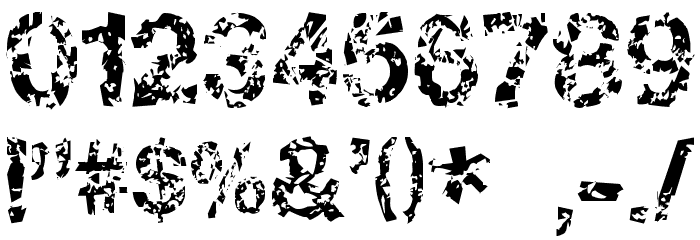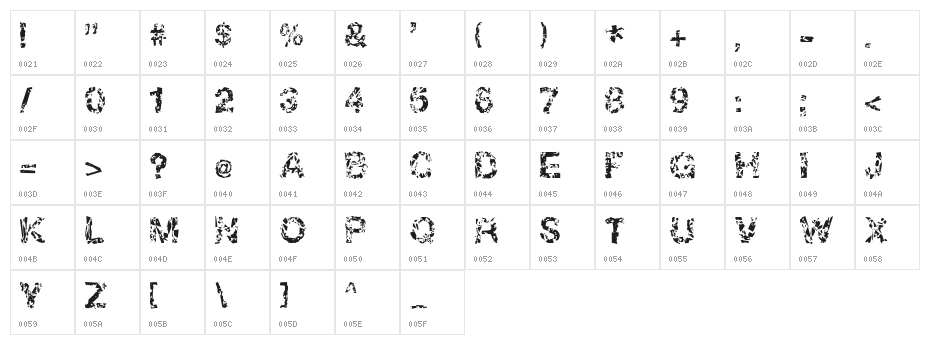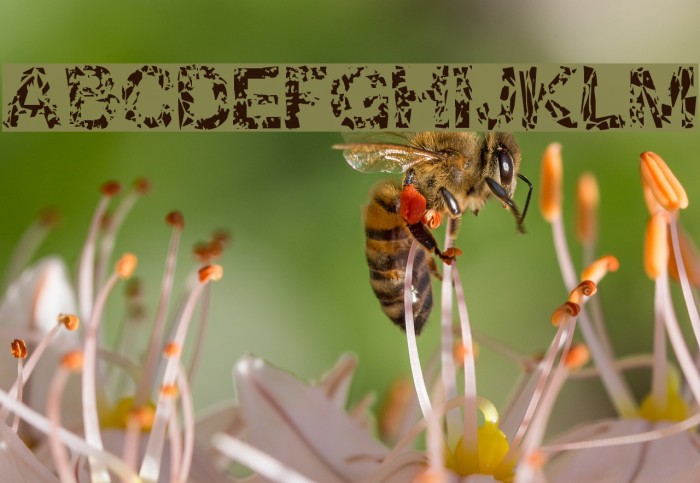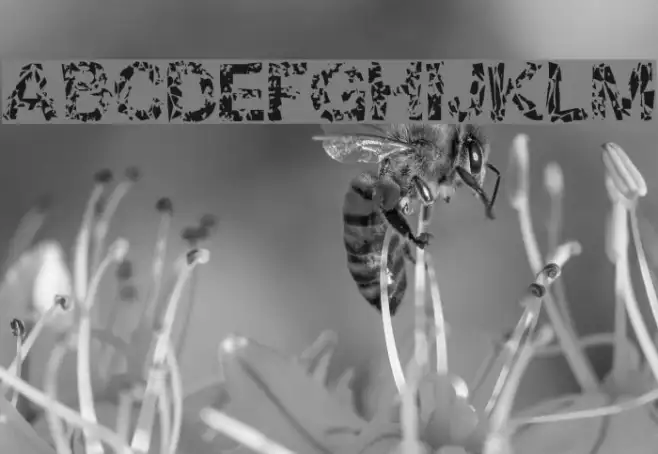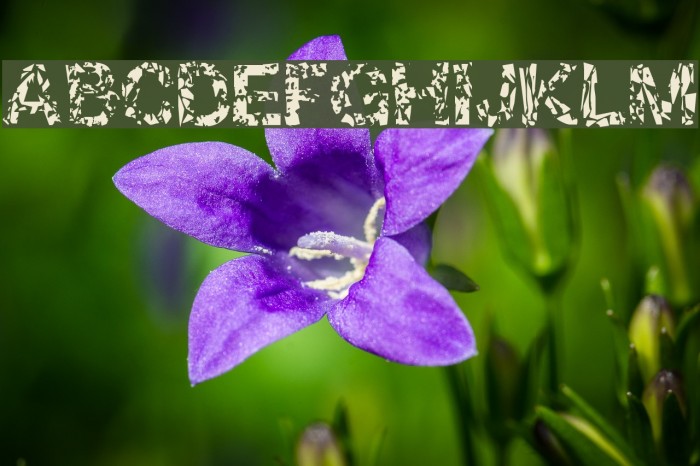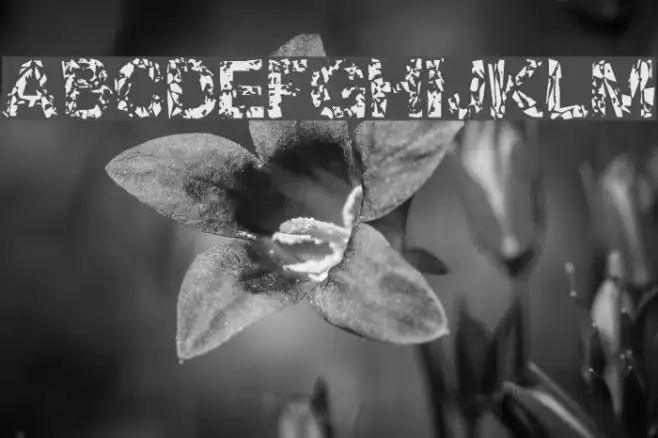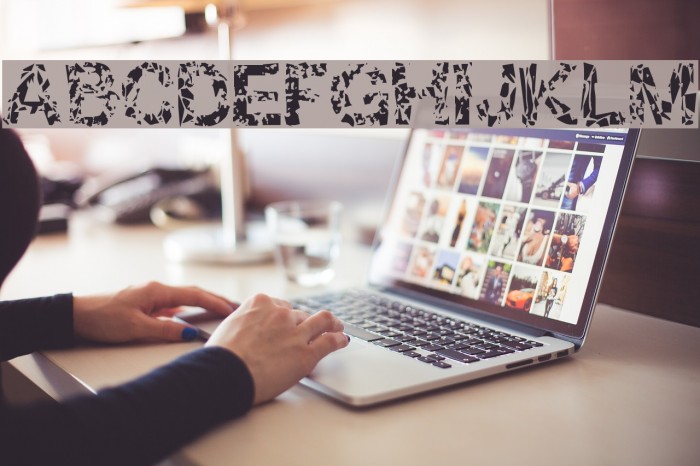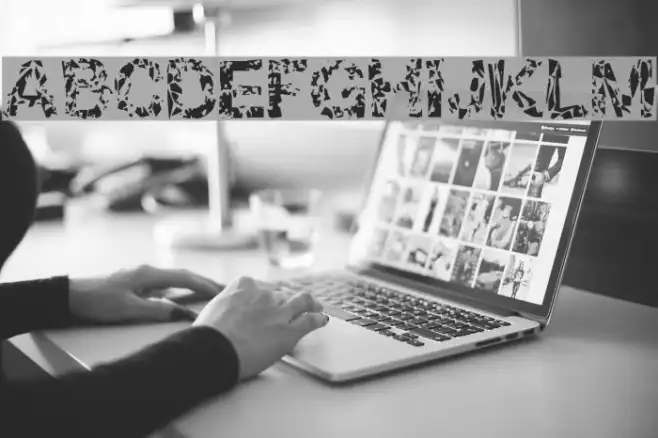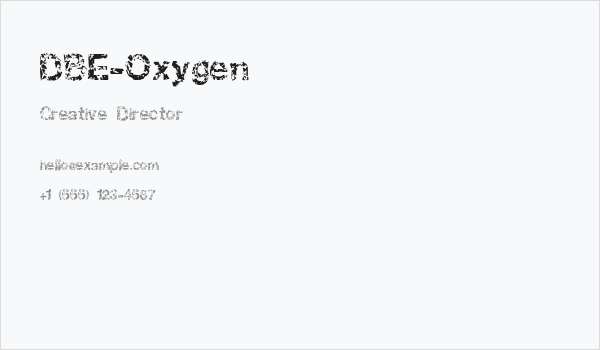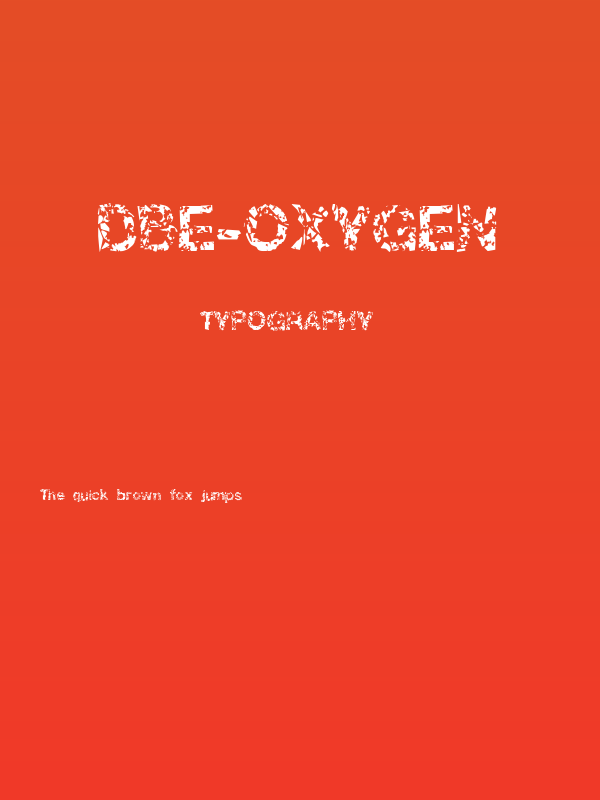
DBE-Oxygen Font
DBE-Oxygen Description
This font features a highly distressed and textured appearance, giving it a rugged and edgy look. The characters are bold and filled with irregular, fragmented patterns that create a sense of chaos and movement. This style is reminiscent of grunge or urban street art, making it stand out with its unique and artistic flair. The uppercase and lowercase letters maintain a consistent design, while the numbers and special characters follow the same distressed theme. The overall effect is visually striking, making it suitable for projects that require a bold statement.
| Proposed Projects | Ideal for album covers, posters, graffiti-inspired designs, and edgy branding projects. |